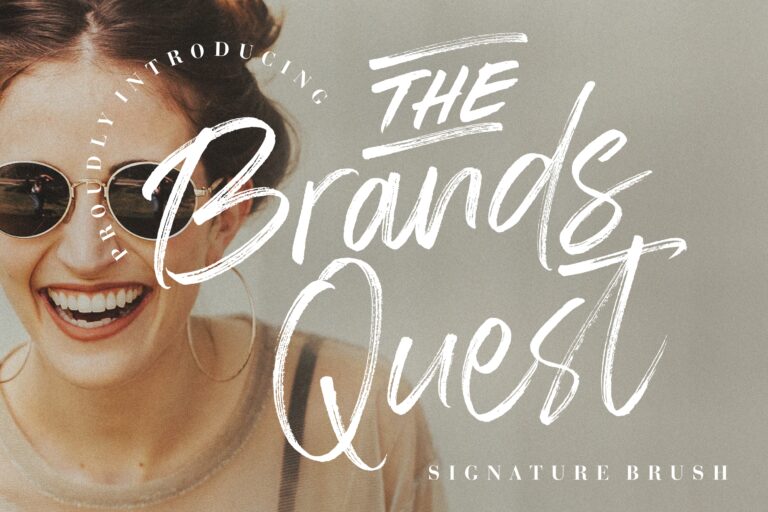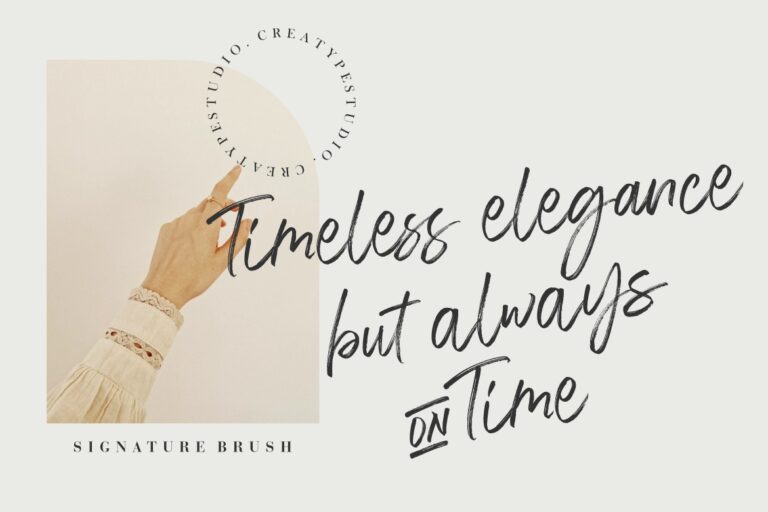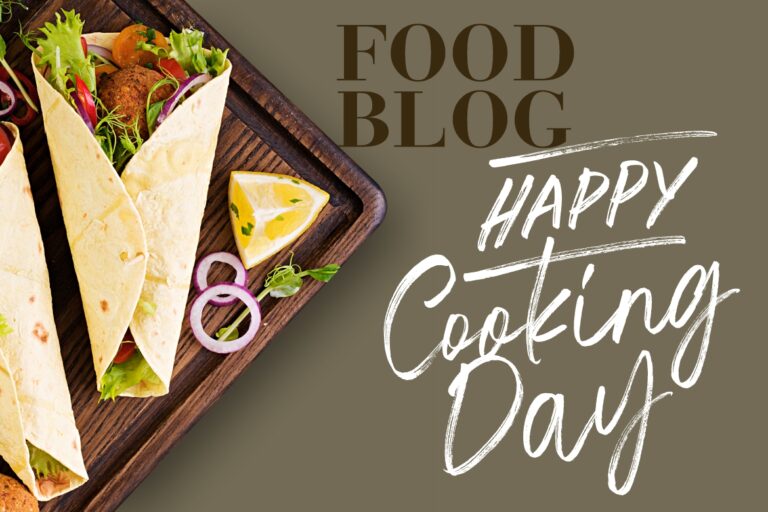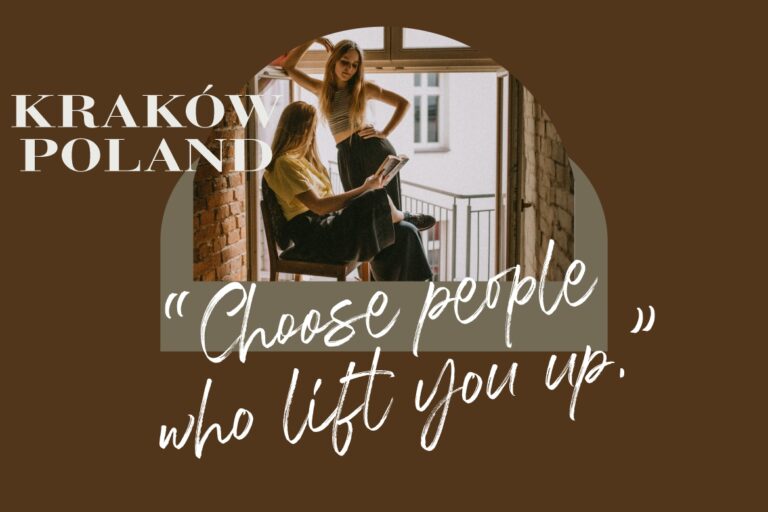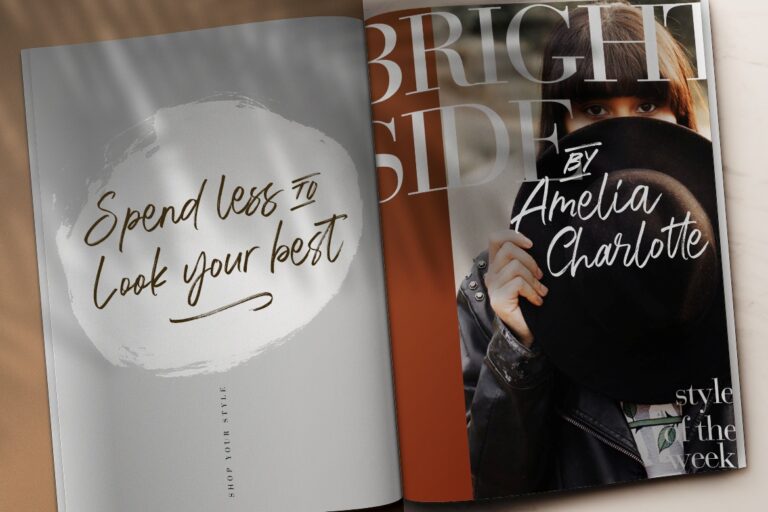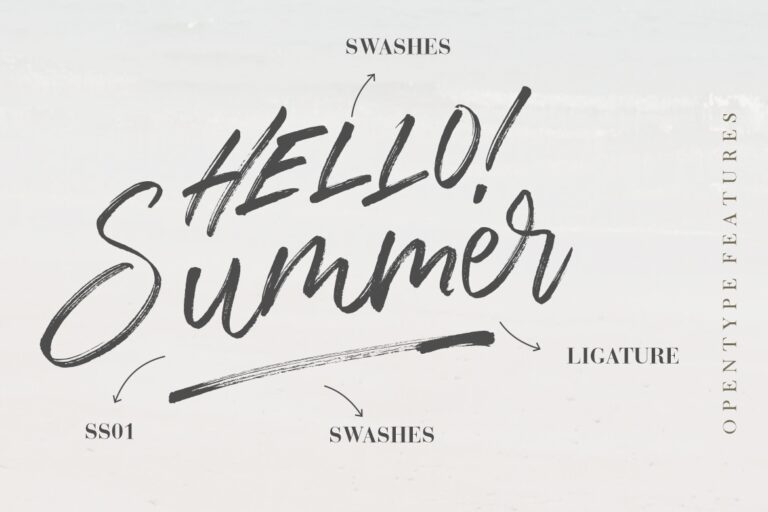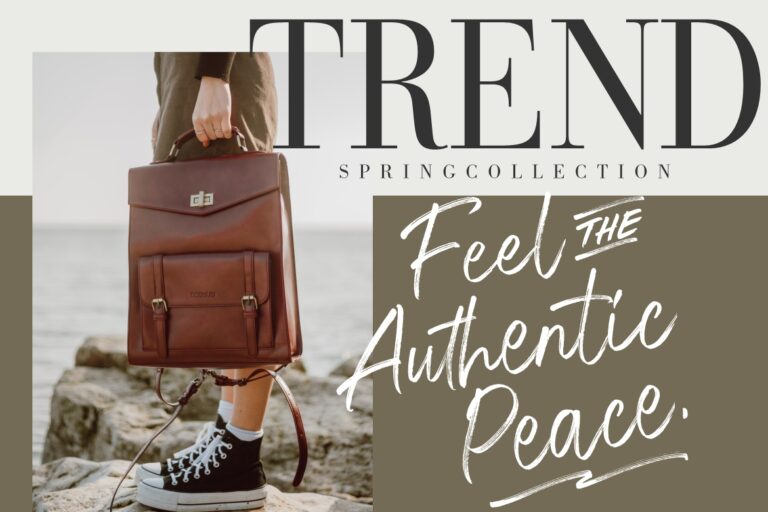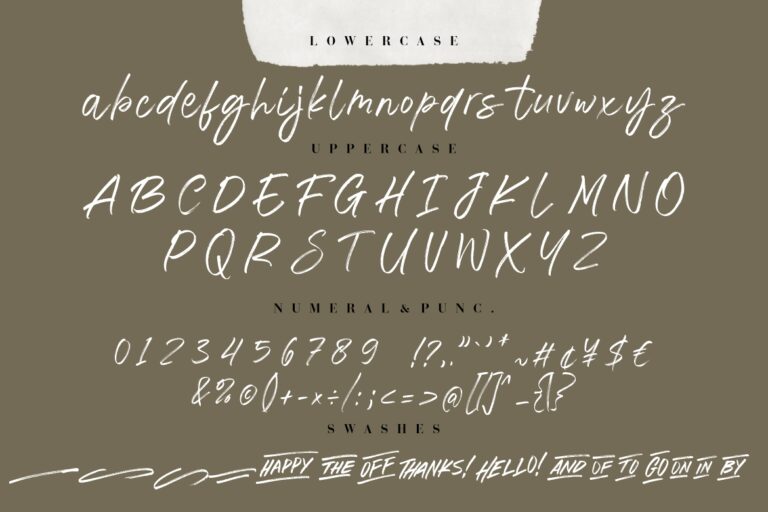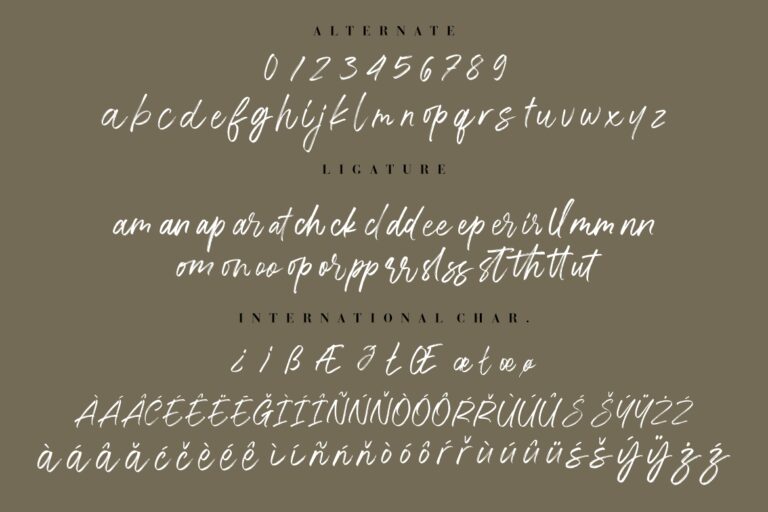
The Brands Quest Signature Brush
The Brands Quest is a signature font with a textured brush can be one of your collection.
The Brands Quest is perfect for branding projects, logo, wedding designs, social media posts, advertisements, product packaging, product designs, label, photography, watermark, invitation, stationery and any projects that need handwriting taste.
• Ton of glyphs
• Ligature & Alternate
• Fonts include multilingual support for; Afrikaans, Albanian, Czech, Danish, Dutch, English, Estonian, Finnish, French, German, Hungarian, Italian, Latvian, Lithuanian, Norwegian, Polish, Portugese, Slovak, Slovenian, Spanisch, Swedish.